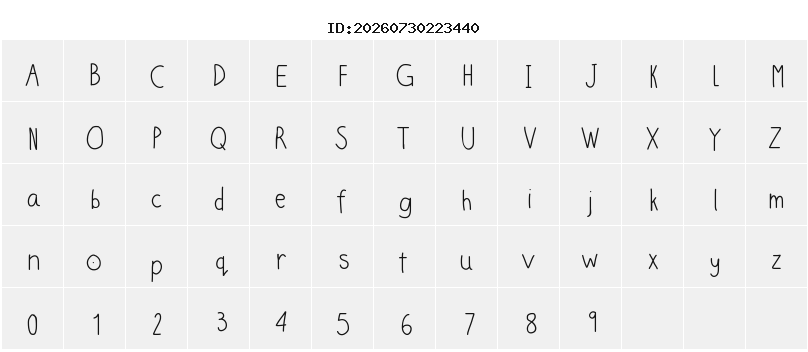
• Font Name: Lost
• Full Font Name: Lost
About Lost.ttf
Lost.ttf is a modern, elegant sans-serif font designed for ultimate readability and visual harmony. Perfect for branding, headlines, web design, and print materials.